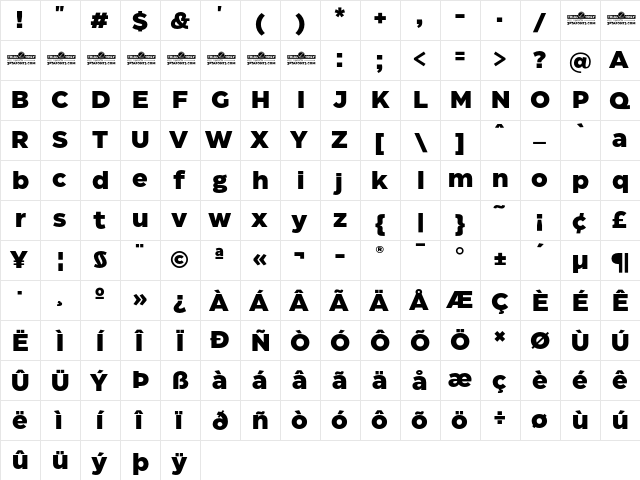
Eastman Trial Extrabold Font Preview
Eastman Trial Extrabold
Eastman Trial Extrabold Font Details
| Style | Extrabold |
| Foundry | Zetafonts |
| Designer | Francesco Canovaro |
Design Context for Eastman Trial Typeface
Eastman Trial offers clean, dependable letterforms without strong stylistic allegiance, making it a practical choice for designers who need flexibility. The heavy weight commands attention and anchors typographic hierarchies.